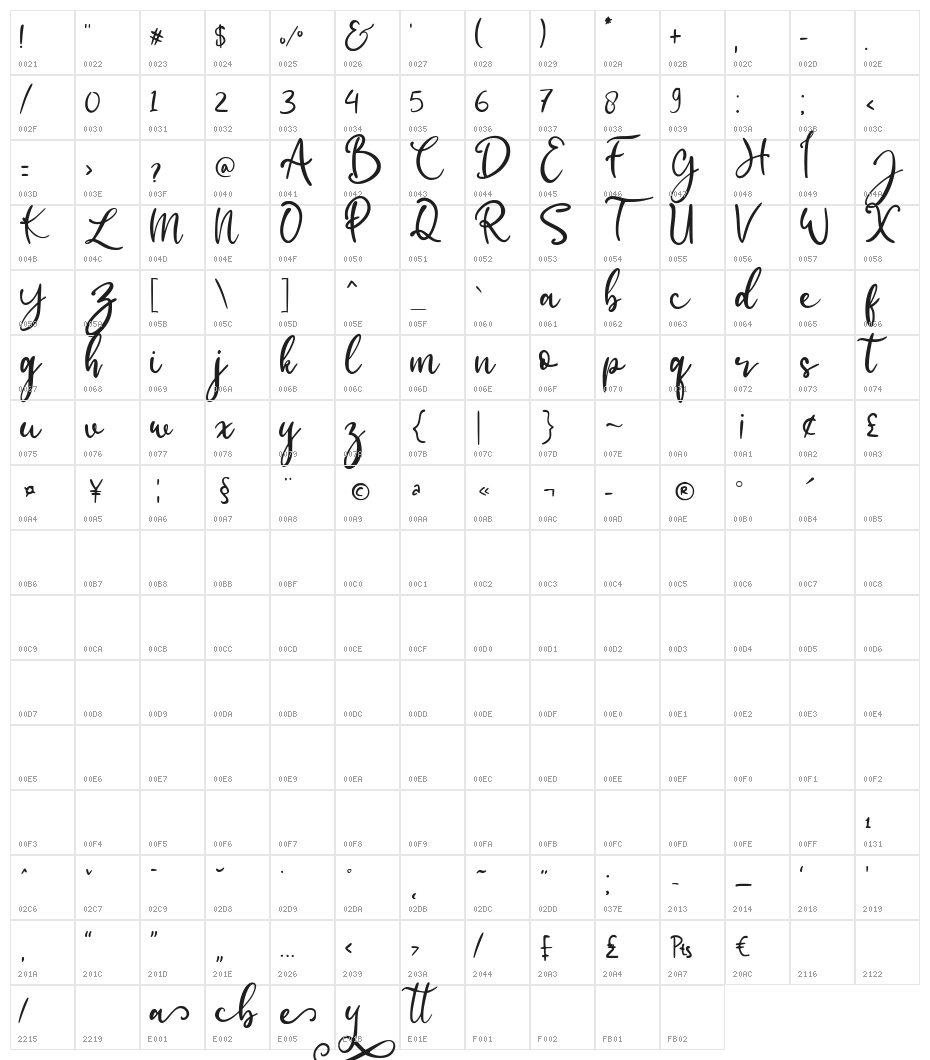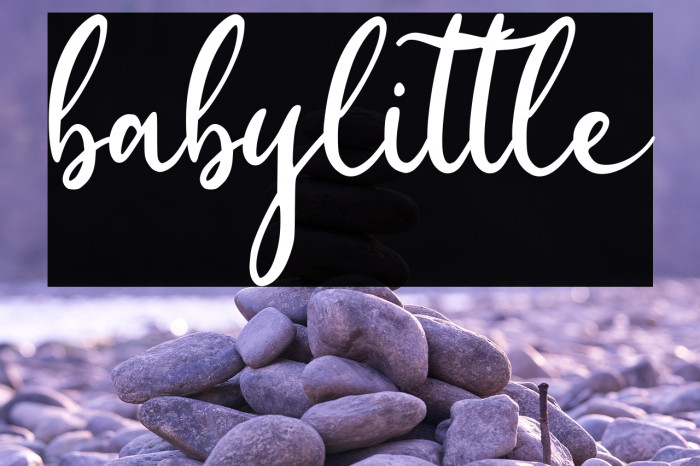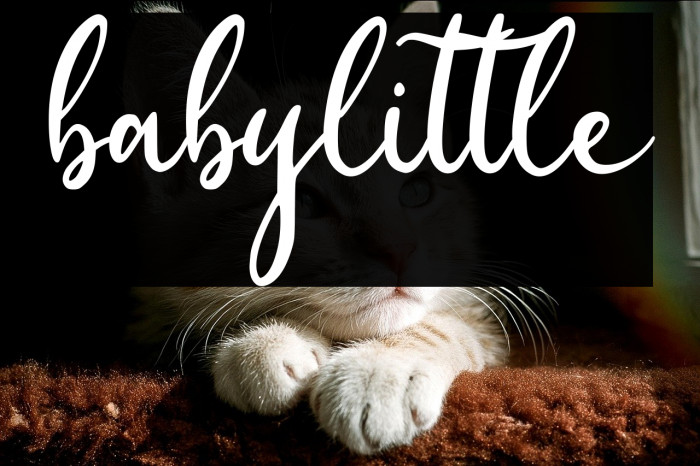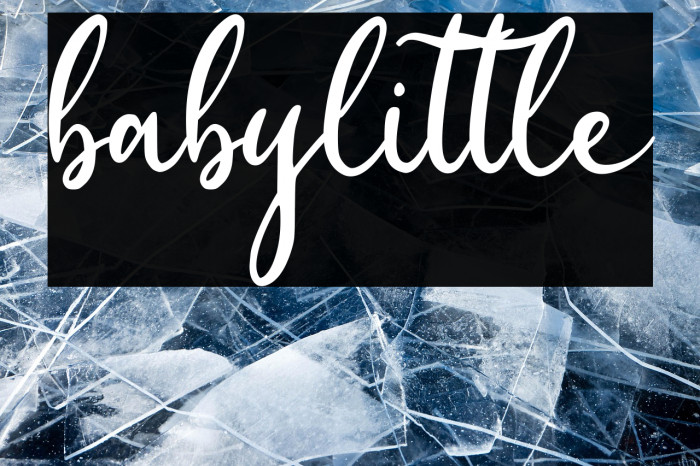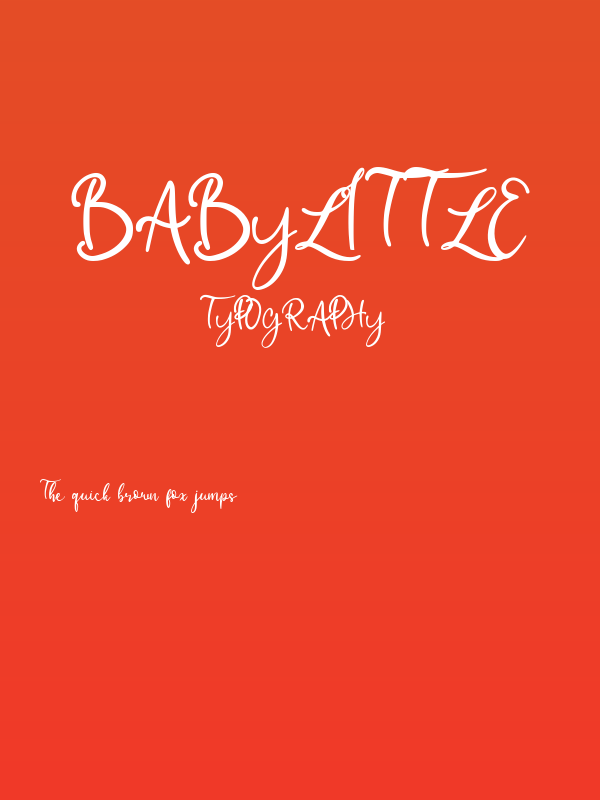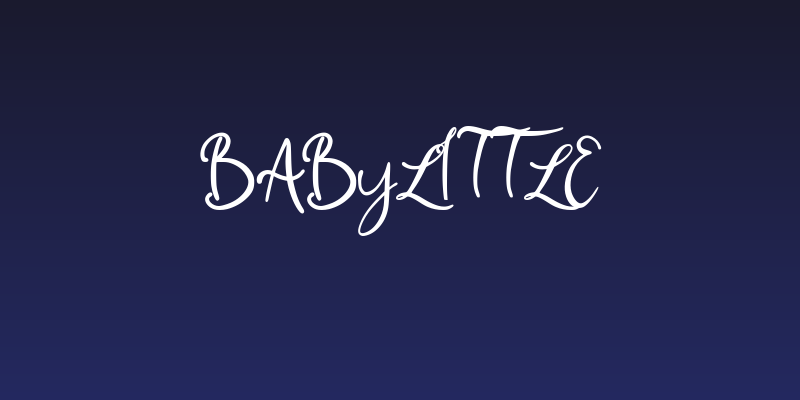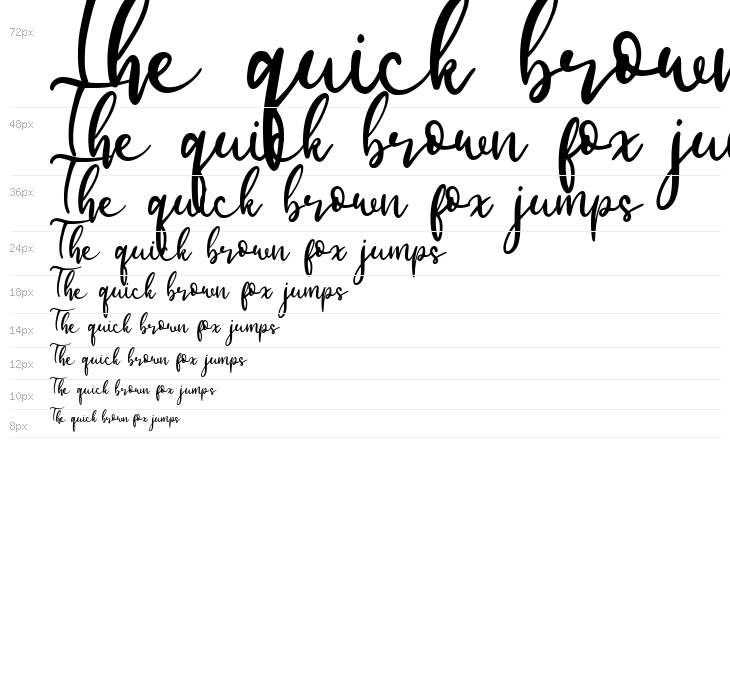
babylittle Font
babylittle Description
This font features a lively and flowing script style, characterized by its smooth, cursive letterforms that mimic natural handwriting. The uppercase letters are bold and slightly slanted, with elegant loops and swirls that add a touch of sophistication. The lowercase letters maintain a consistent flow, with rounded edges and a playful bounce that enhances its casual yet refined appearance. Numbers and special characters are designed to match the overall aesthetic, ensuring a cohesive look across all text. The font's organic feel makes it suitable for projects that require a personal touch.